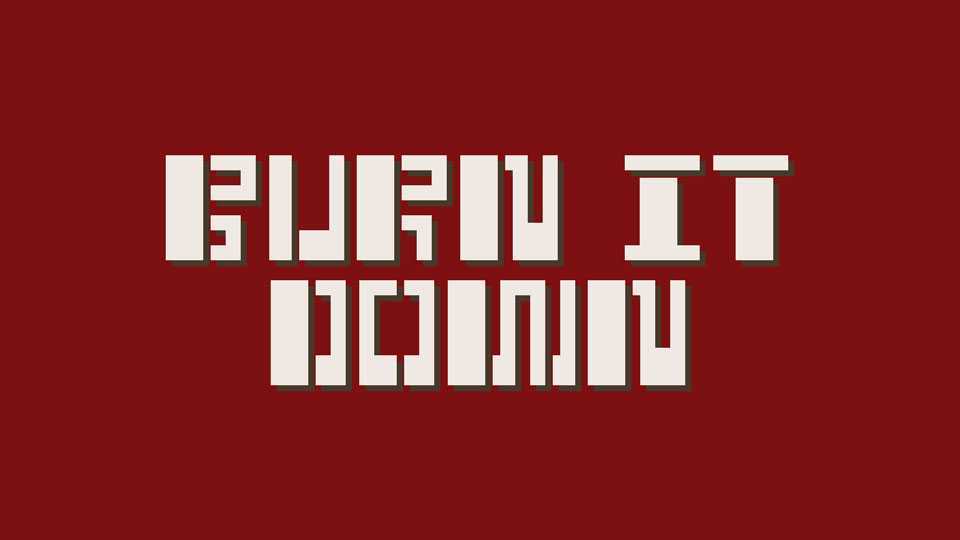
Download Burn it Down font, a bold display typeface that seamlessly blends retro aesthetics with a contemporary edge. This high-contrast stencil typeface is designed to make a powerful statement.